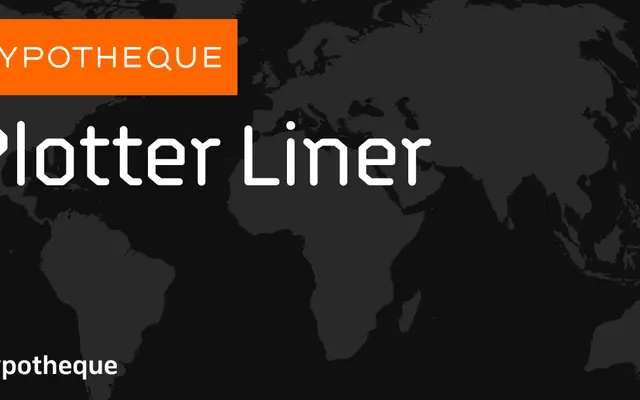
Plotter Liner specimen from Typotheque
A family of five subfamilies built around the aesthetic of single-stroke plotter lettering, extending into stencil, mono and layered display cuts.
Rooted in the mechanical precision of pen-plotter output, the family spans proportional and monospaced cuts alongside stencil variants of each, all sharing a consistent skeletal logic drawn from instrument-plotted letterforms. The Display subfamily adds a layered Bold split across four separate layer fonts, giving designers control over colour and depth. City-named styles — Amsterdam, Bengaluru, Copenhagen, Damascus — suggest additional regional or script-specific variants, with Arabic coverage confirmed.
The single-stroke, plotter-derived construction and stencil variants place this firmly in the technical/engineering sans tradition, with a monospaced sibling confirming its utilitarian, instrument-led heritage.